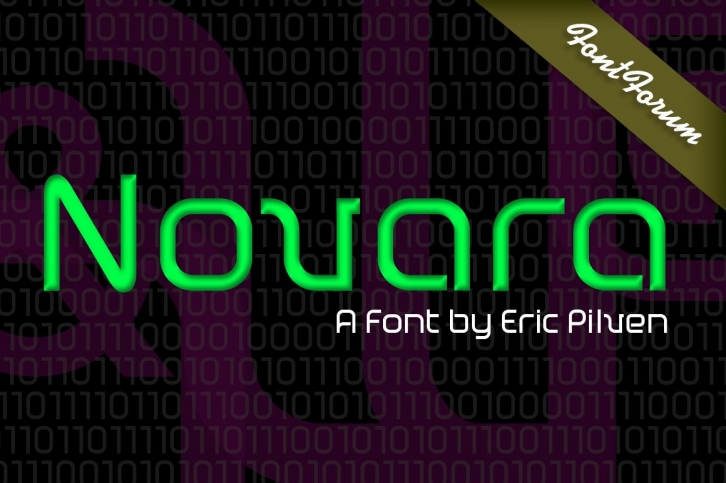
The quadratically constructed Novara conveys size and stability. The font is rather rich in contrast emphasizing its quite nuanced personality. Despite the rectangular geometry, edges and corners are rounded even stressing the quite non-stringent character of the font. Although the flow has authority and occurs broad and strong, it remains open and airy. The stocky descenders are not even looking for higher realms and convey the font the linear speed and ground-force of a train at full speed. Novara is a very modern font that is true to, like an innovative snapshot of its age, the computer and technology era.